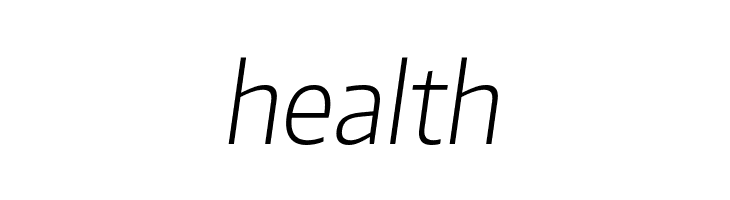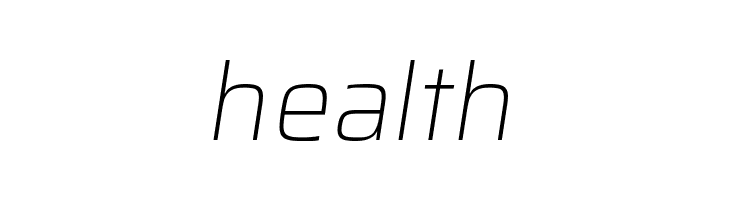
An elegant, extra light italic font with sleek, elongated characters.
A sleek, modern extra light italic font with elegant slanted characters.
A modern, extra light sans-serif font with clean lines and low contrast.
A modern, clean sans-serif font with uniform stroke width and excellent readability.
A sleek, modern sans-serif font with a light, italic style.
A sleek, modern sans-serif font with an italic slant and thin strokes.
A modern, extra light sans-serif font with low contrast and excellent readability.
A sleek, modern italic font with a light weight and elegant style.
A modern, extra-light sans-serif font with geometric shapes and smooth curves.
A modern, clean sans-serif font with uniform stroke width and excellent readability.